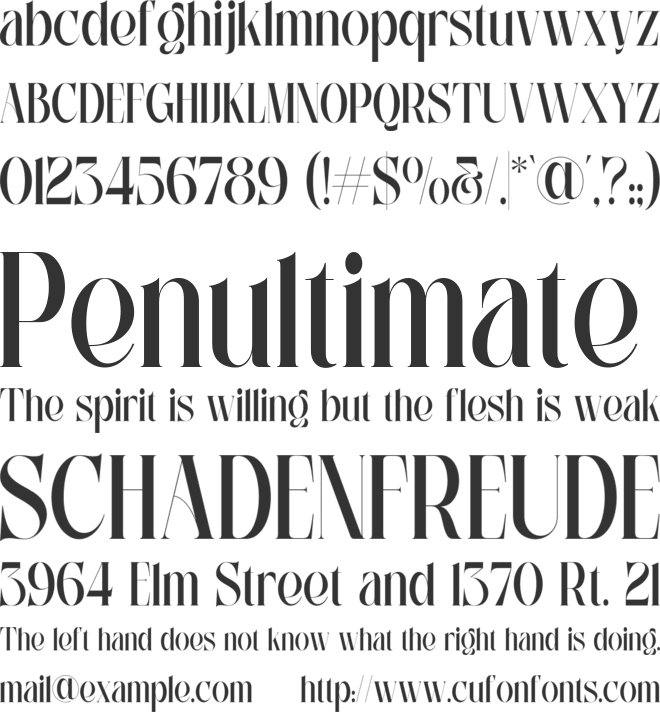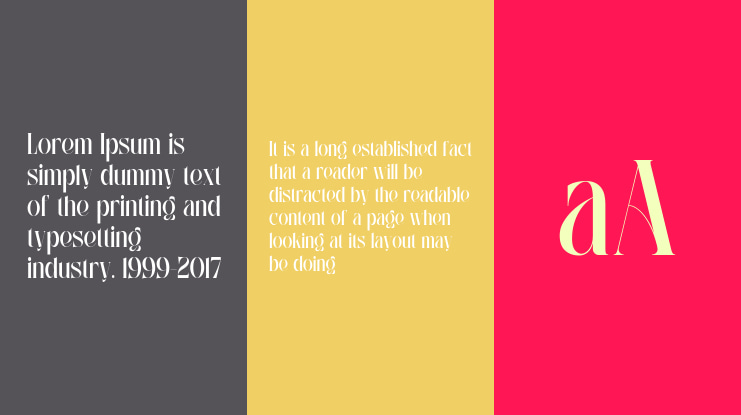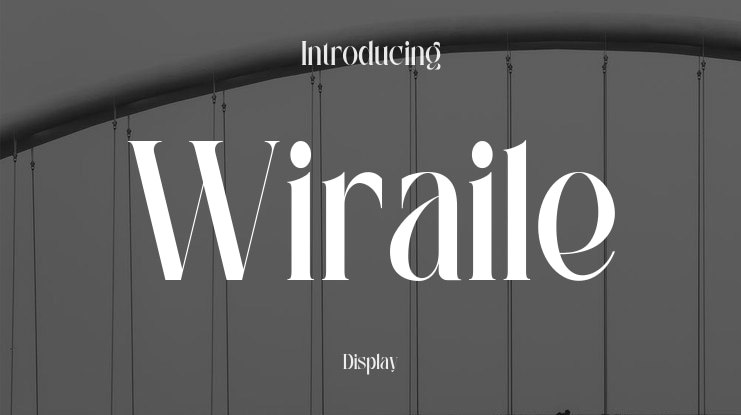
Wiraile Font
Wiraile Typeface: An Elegant Serif with a Floral Touch
Introducing Wiraile, a stunning and elegant serif typeface that beautifully captures the essence of nature's splendor. Wiraile is designed for projects that demand a touch of class, sophistication, and organic beauty. It masterfully blends the timeless structure of a high-contrast serif with the whimsical charm of nature, featuring exquisite swashes that bloom with delicate floral and leaf elements.